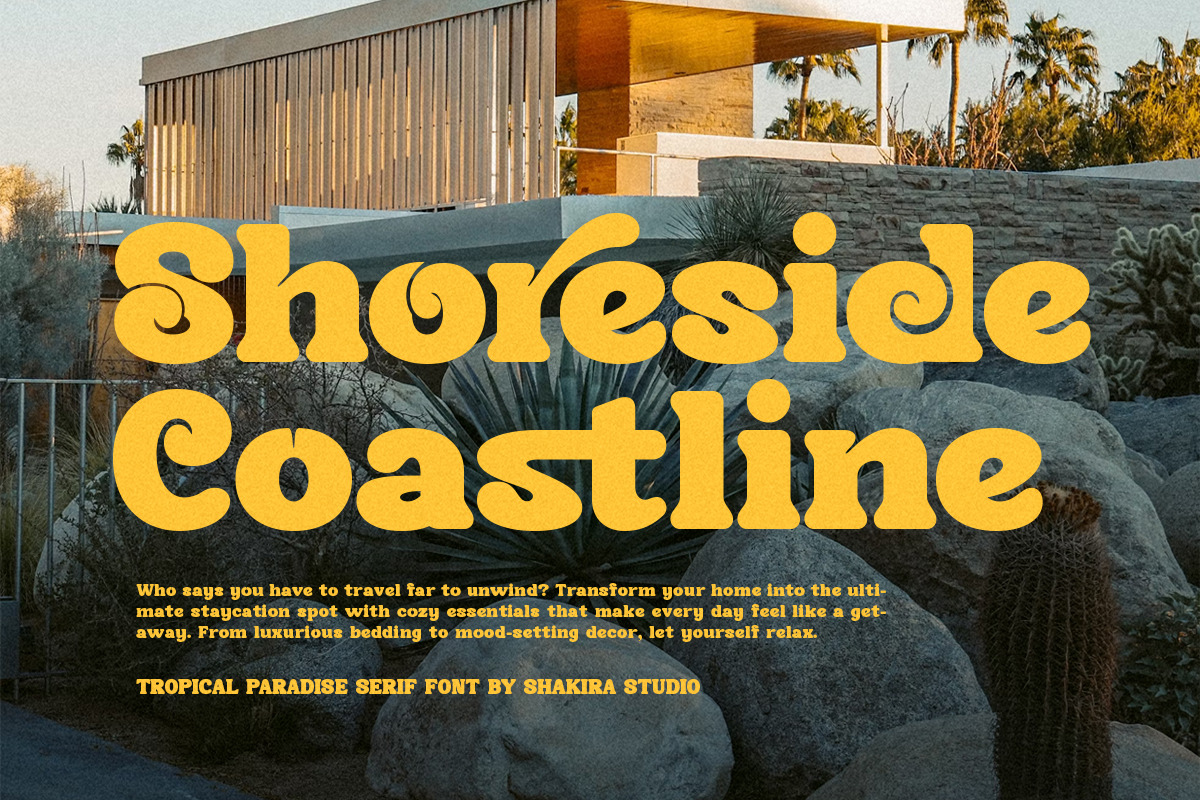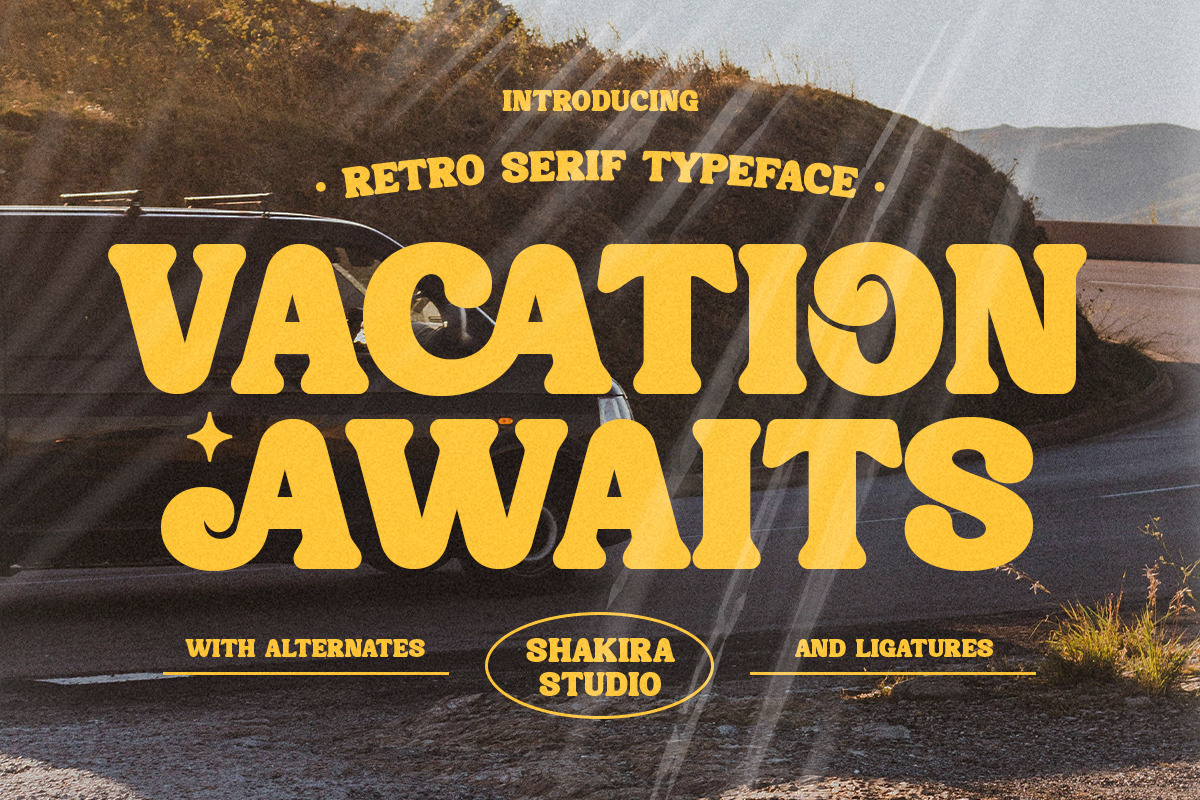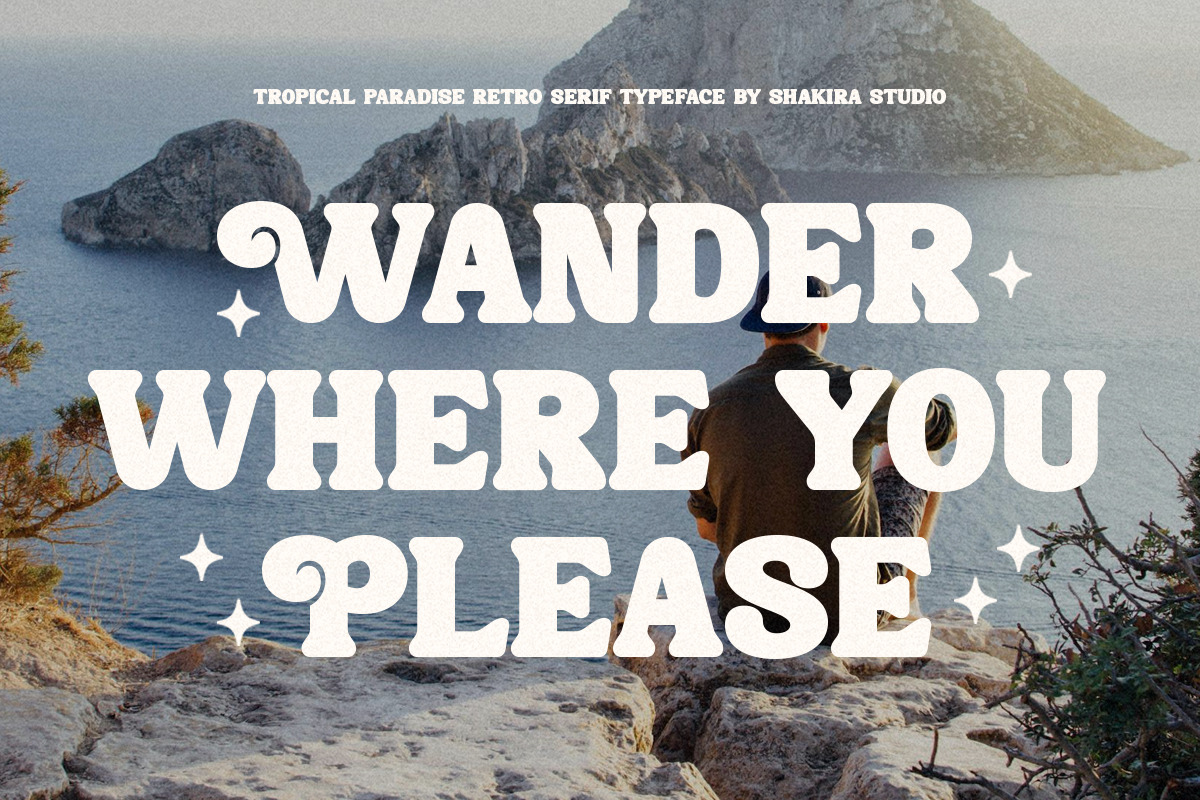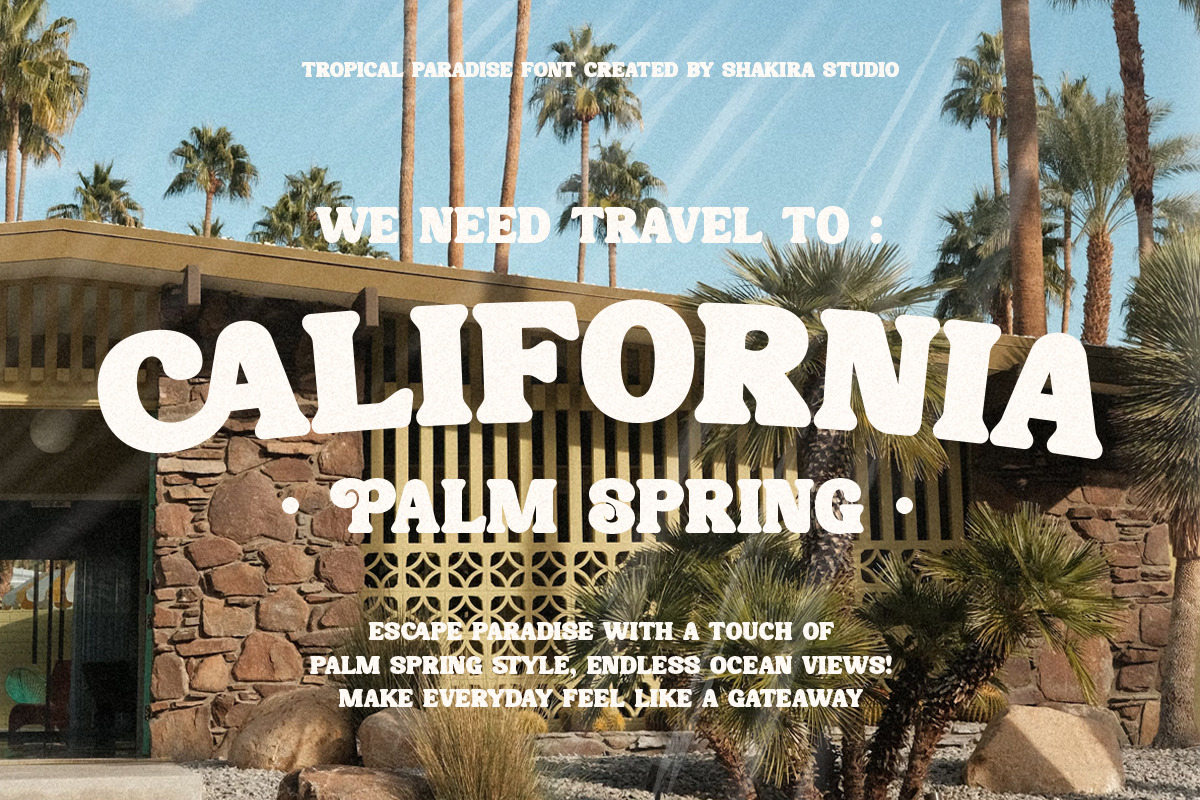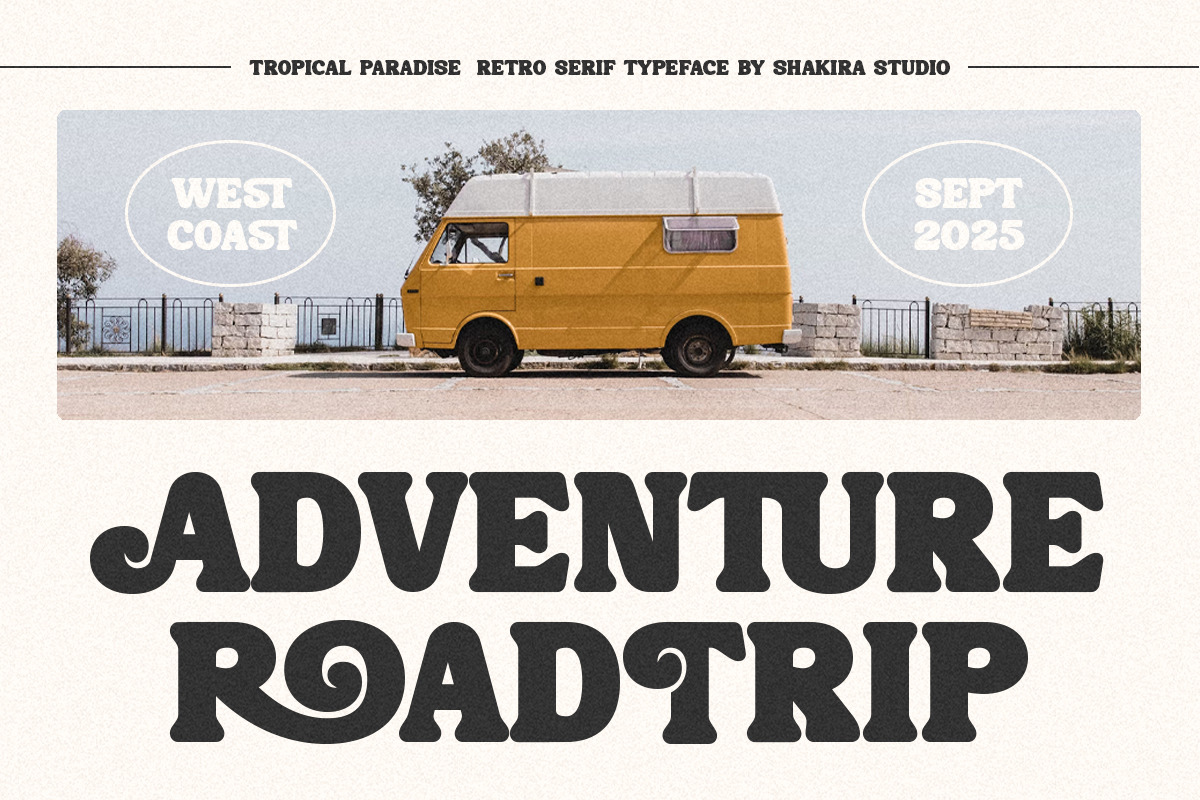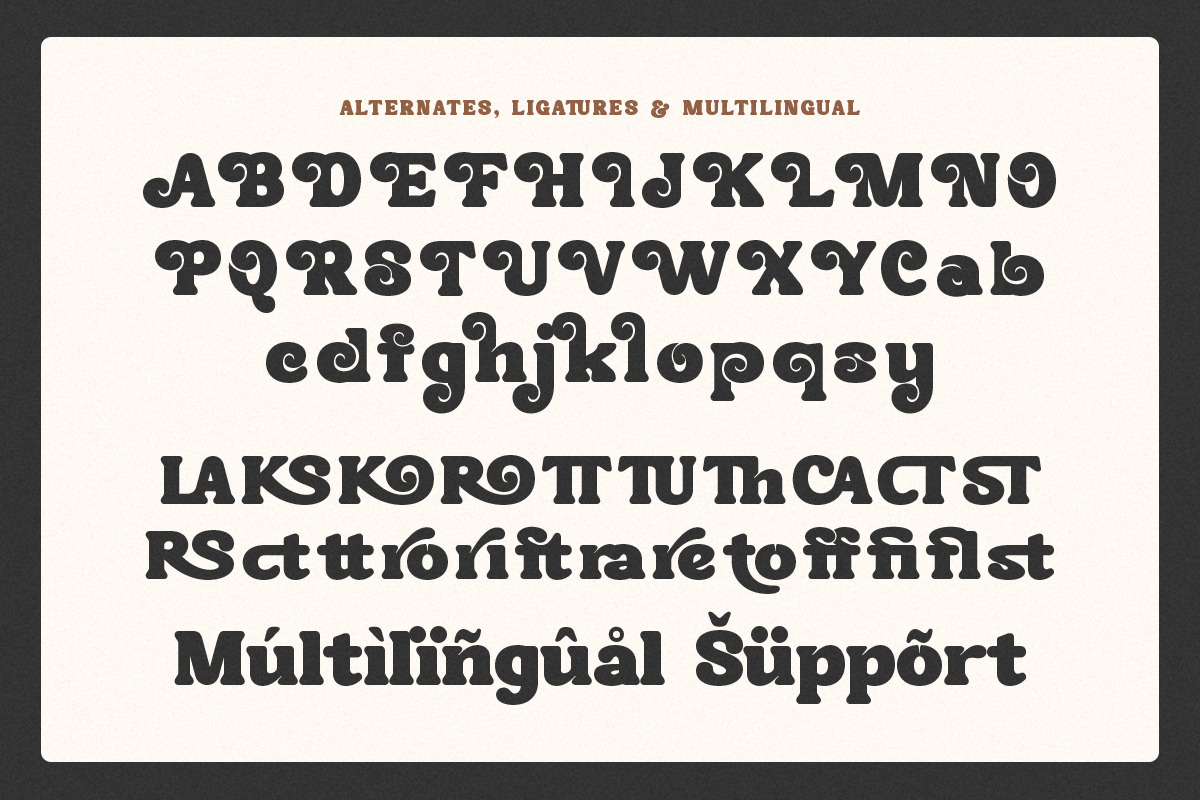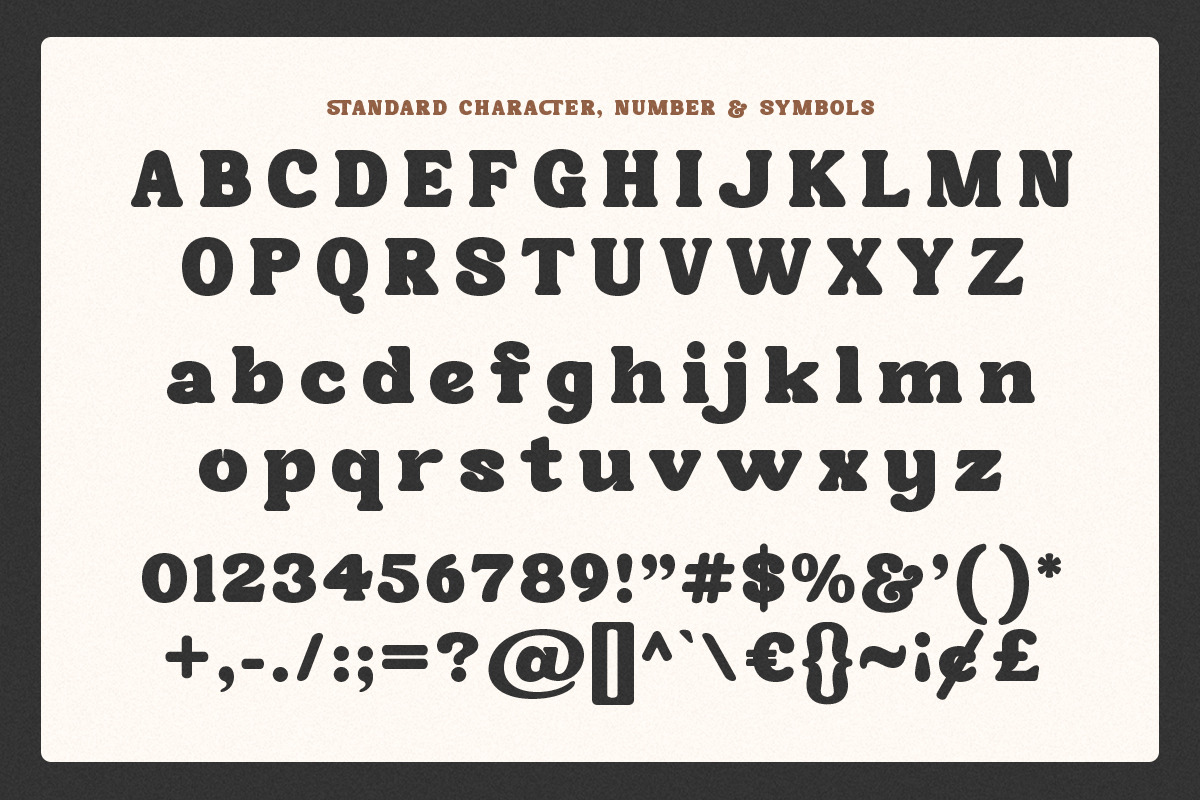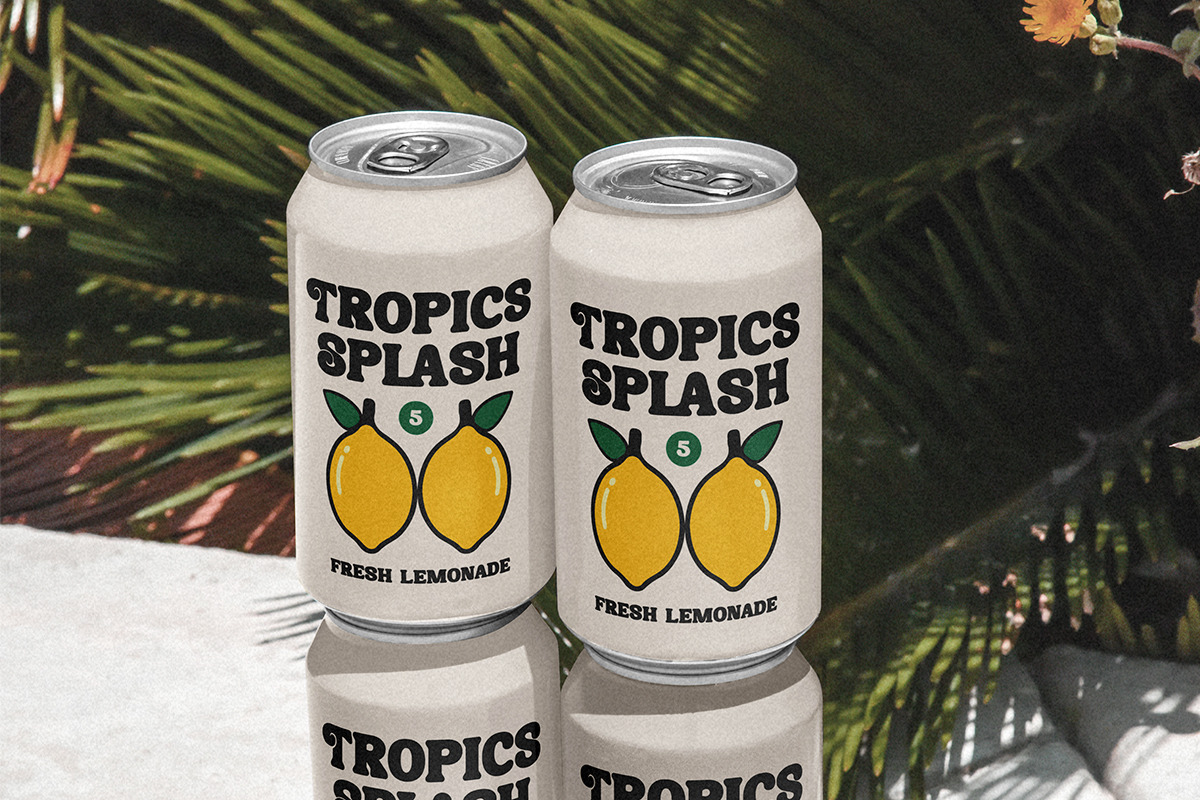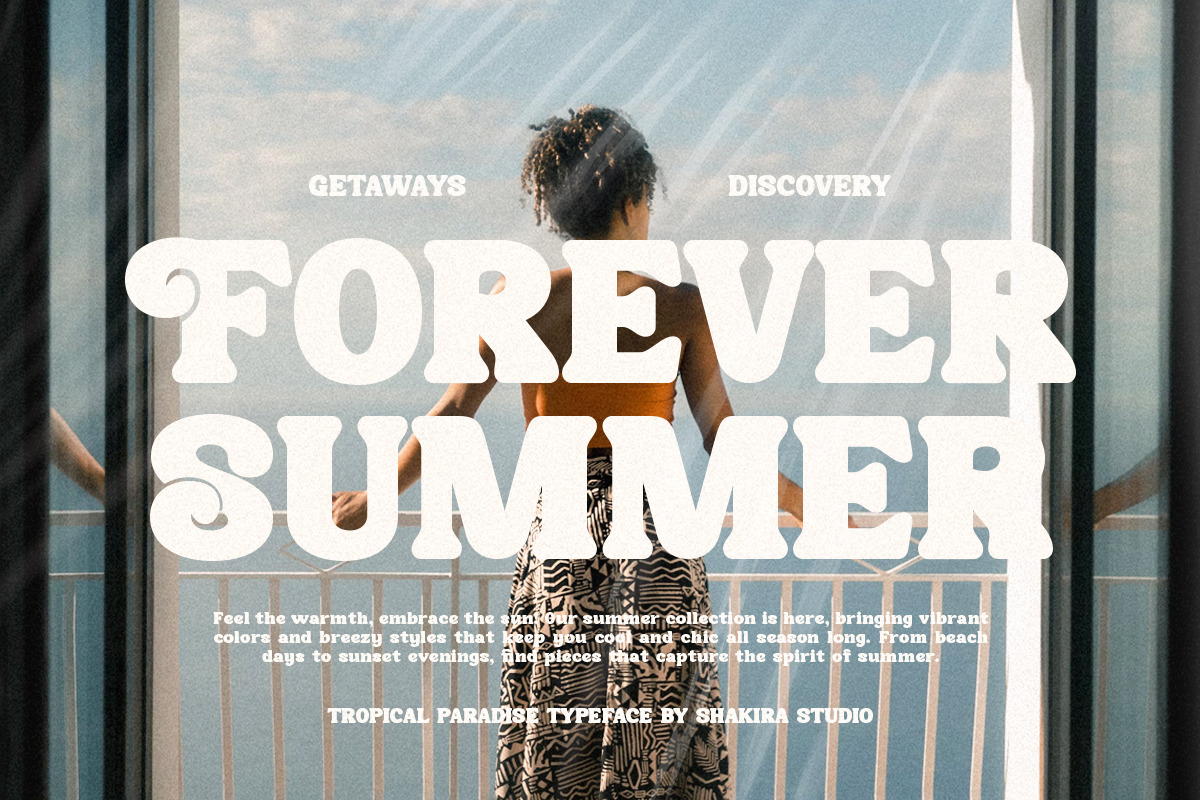
SKR - Tropical Paradise
Tropical Paradise is a bold retro display serif font available in regular and italic styles. Featuring stylish alternates and ligatures, this typeface brings a fun yet timeless touch to your designs. Perfect for branding, packaging, posters, social media, and more, Tropical Paradise is versatile for any creative project.
- Regular & Italic
- All Multilingual symbol
- Opentype features ( ligature, alternate )
Multilingual character supports : (Afrikaans, Albanian, Catalan, Croatian, Czech, Danish, Dutch, English, Estonian, Finnish, French, German, Hungarian, Icelandic, Italian, Lithuanian, Maltese, Norwegian, Polish, Portuguese, Slovenian, Spanish, Swedish, Turkish, Zulu)